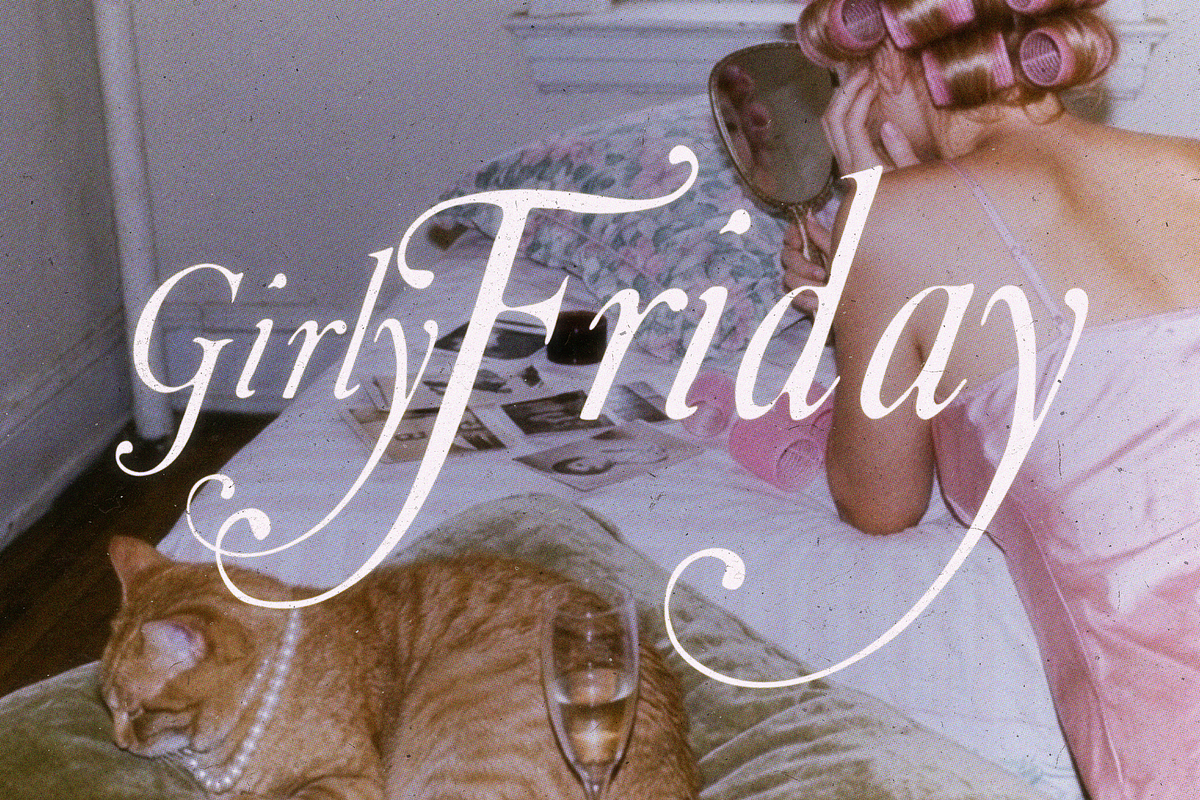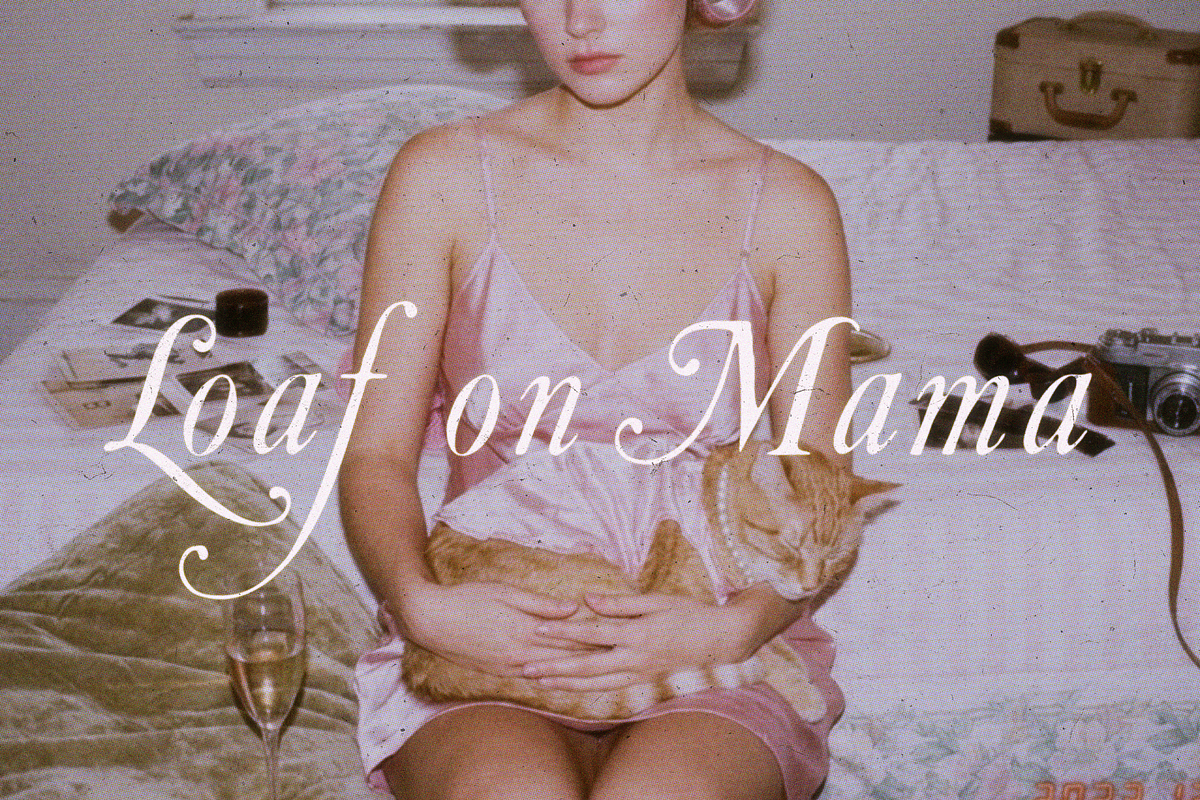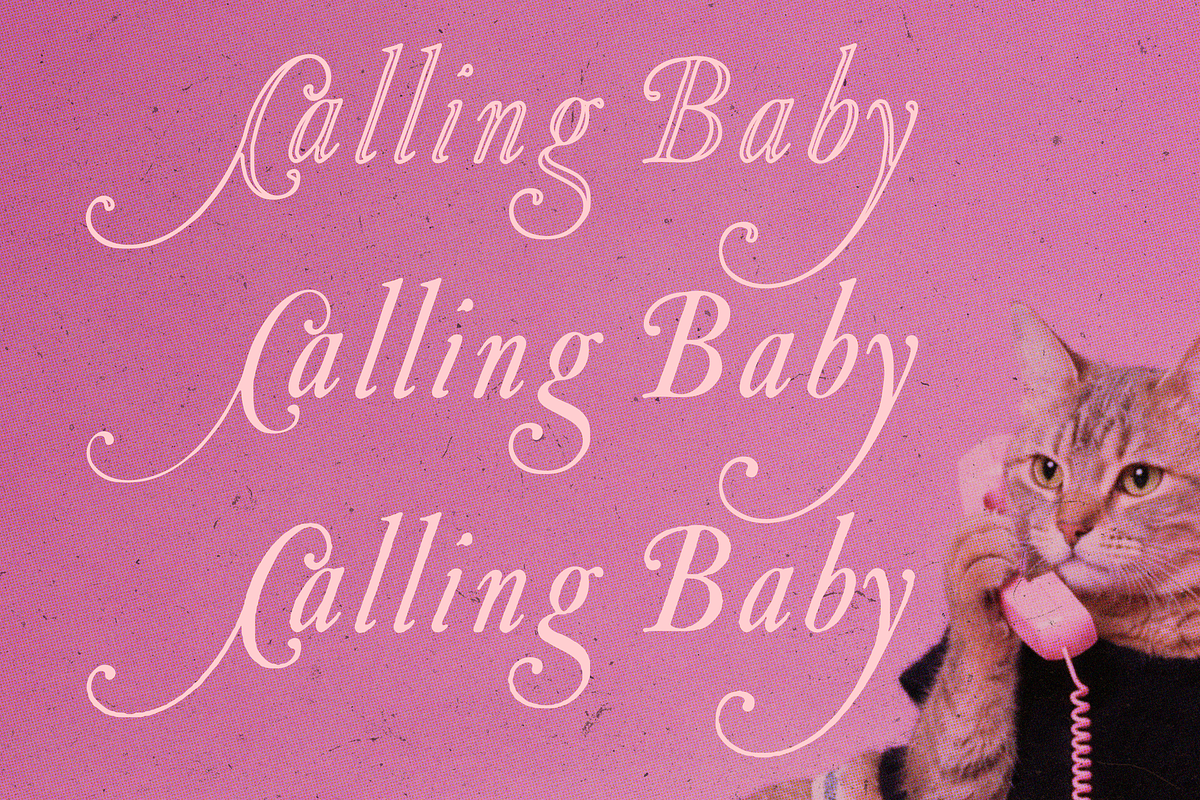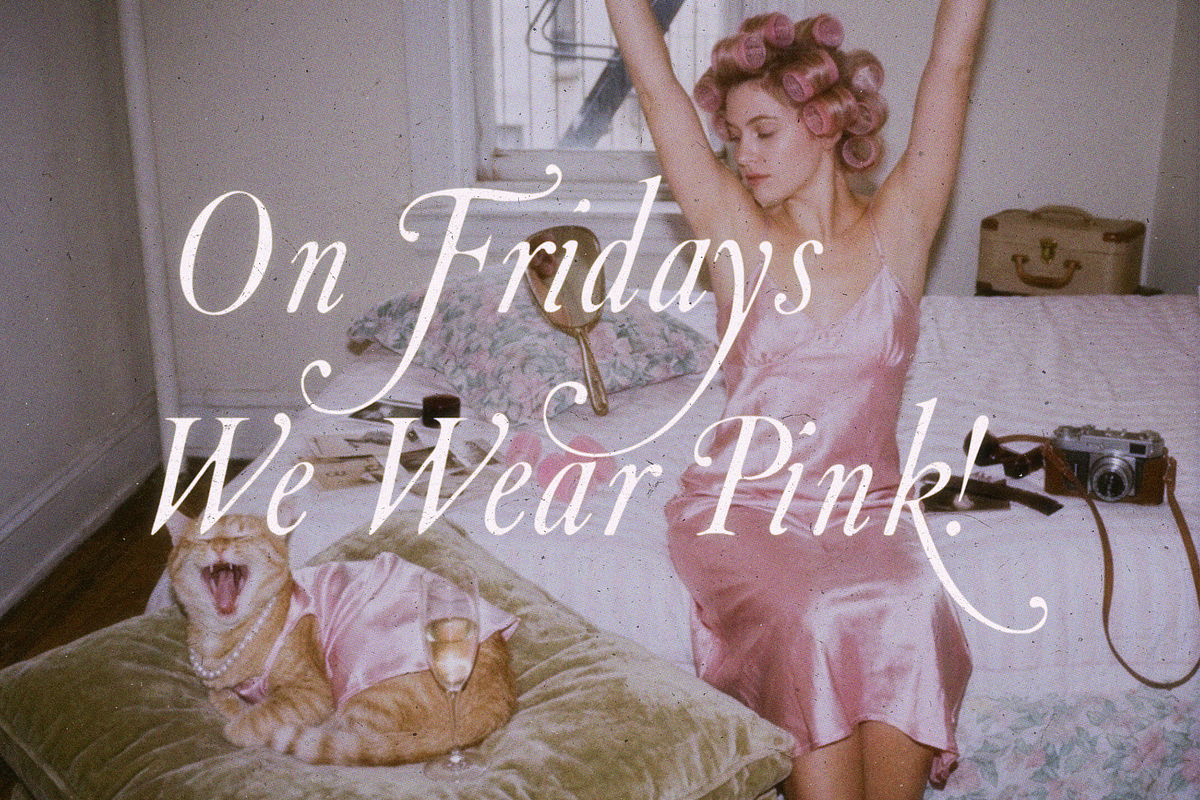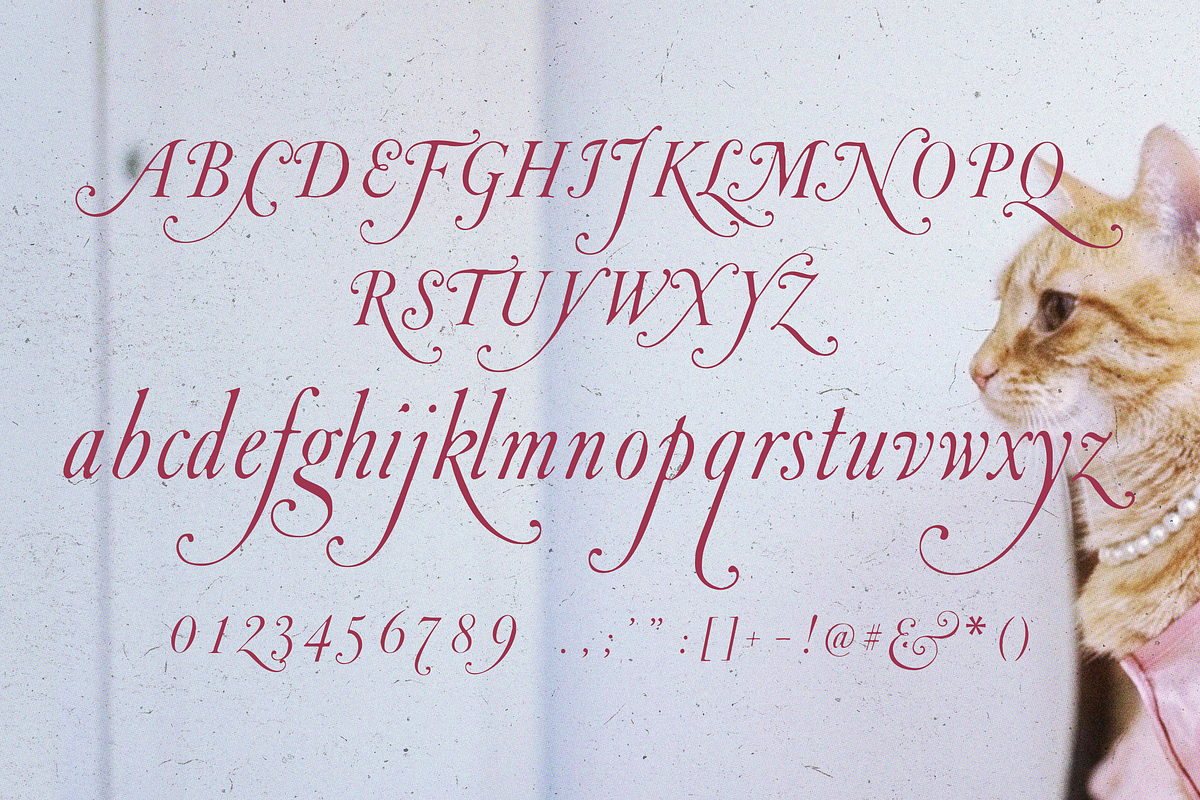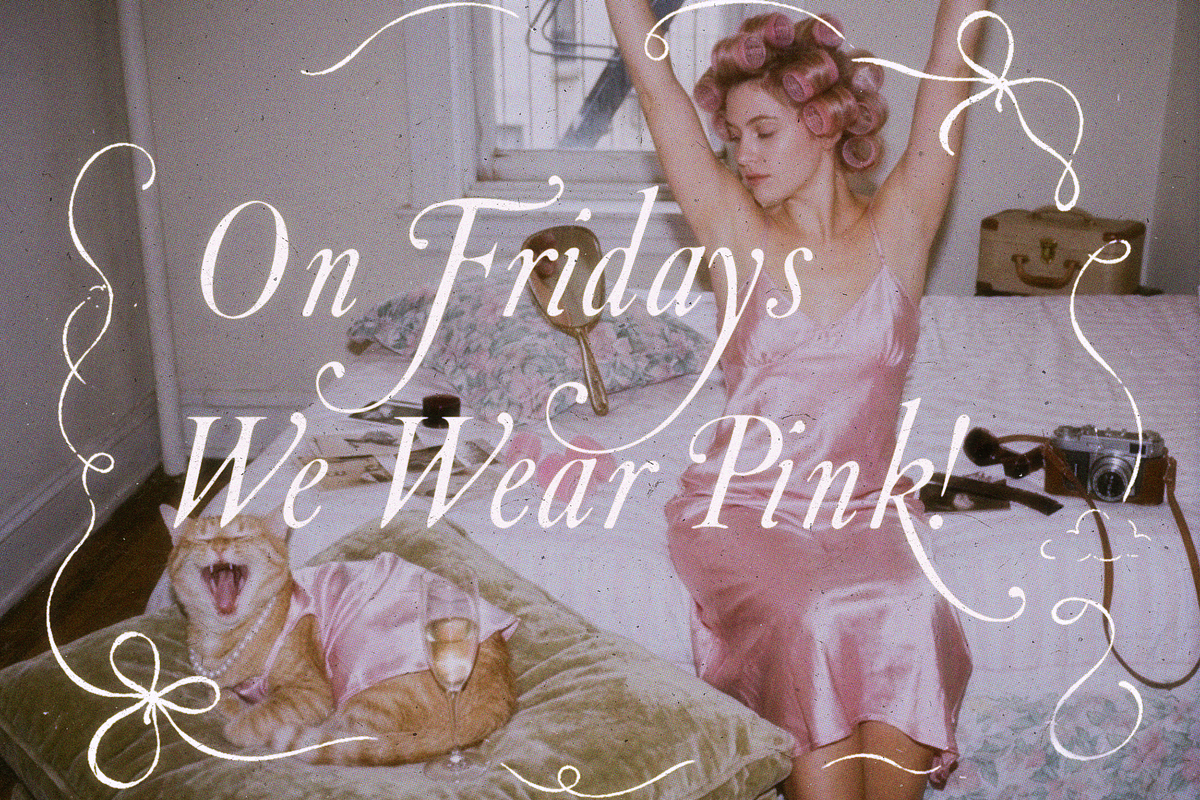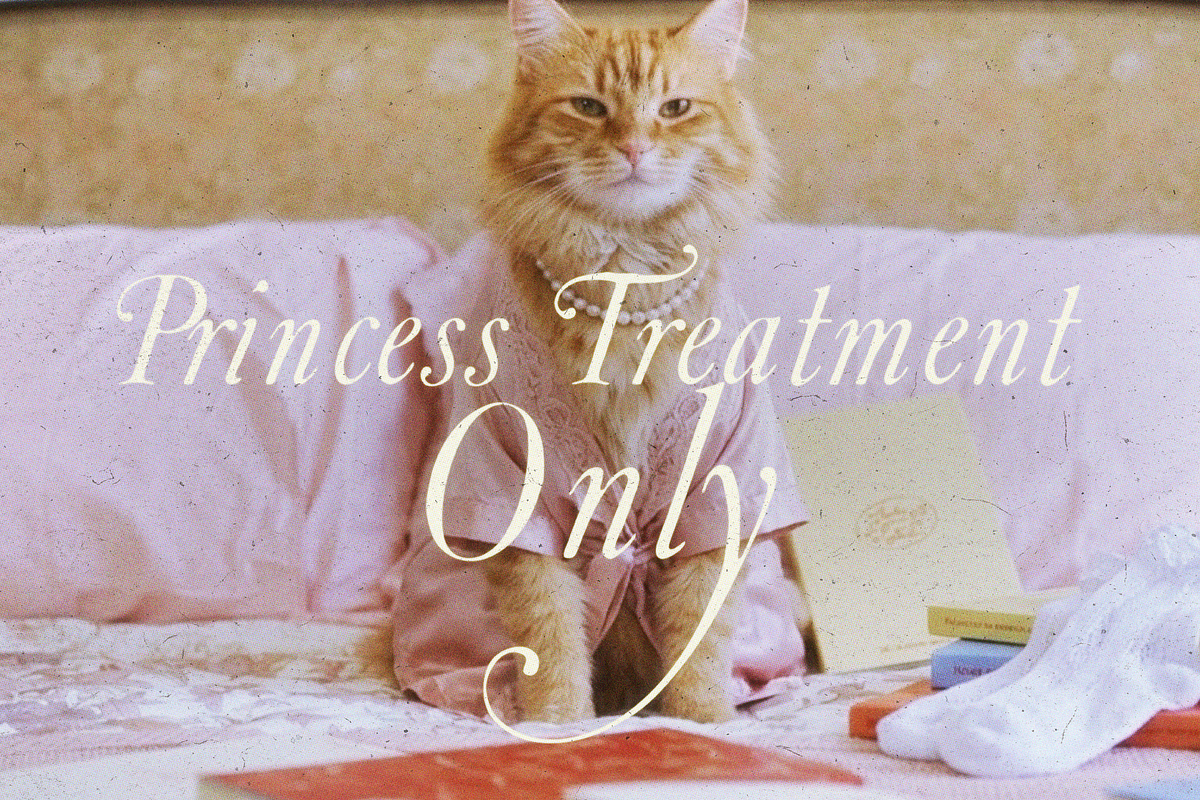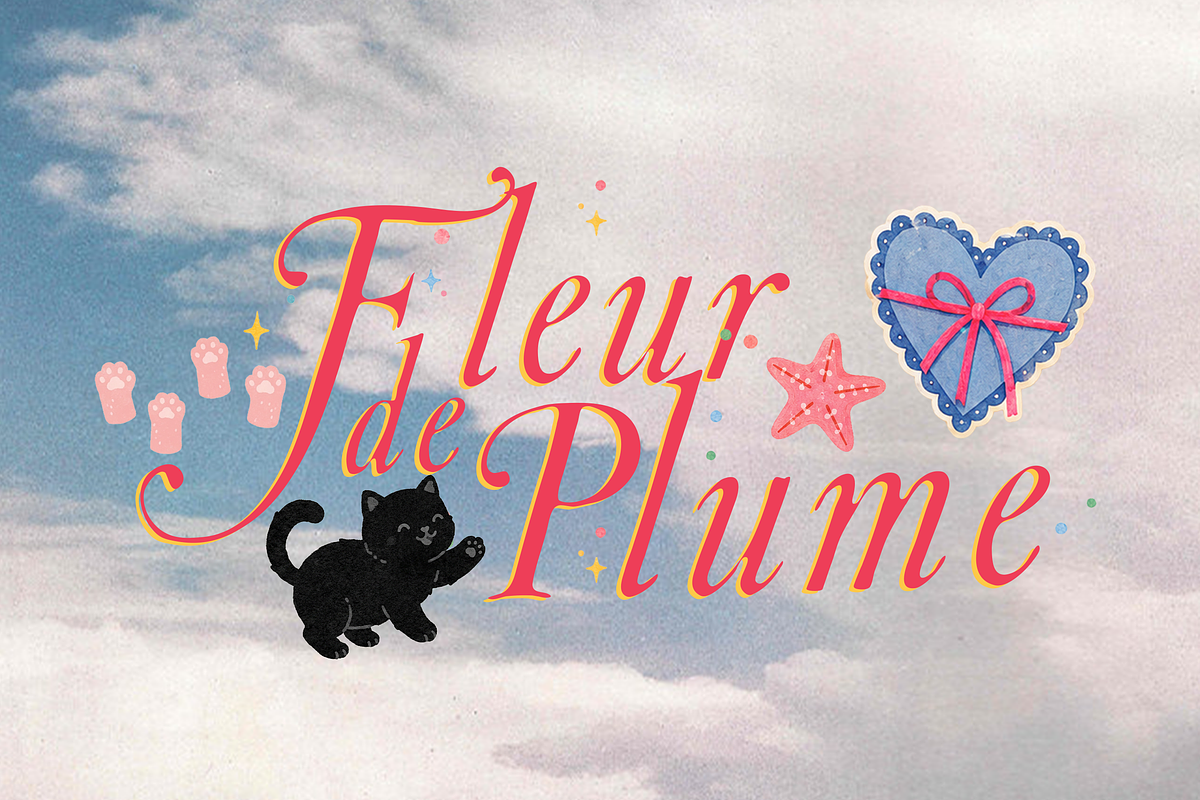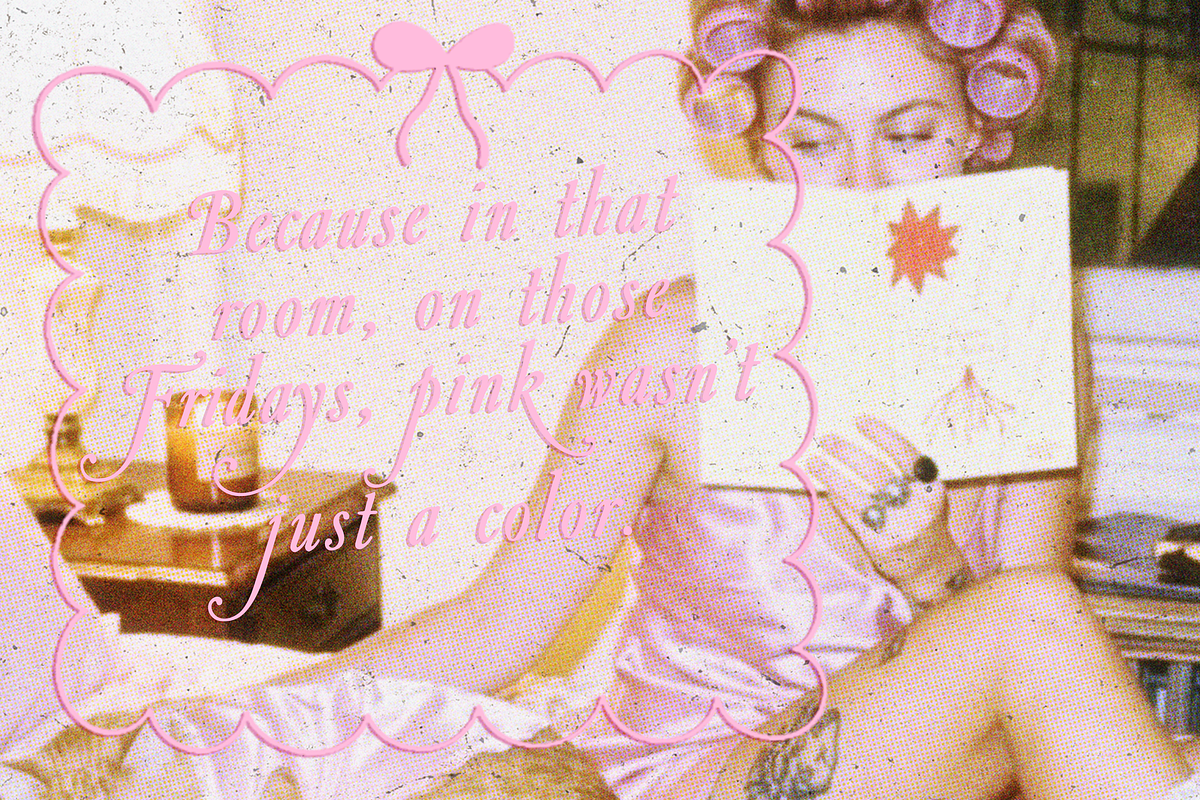
Fleur de Plume
Fleur de Plume is an elegant calligraphic display font filled with sweeping flourishes, delicate curves, and dramatic elongated tails. Inspired by vintage fashion editorials, handwritten love letters, and romantic French stationery, it blends graceful femininity with a playful retro charm.
Its refined thick-and-thin strokes and ornamental letterforms make every word feel expressive and beautifully composed. Fleur de Plume is especially suited to statement titles, branding, packaging, wedding stationery, magazine layouts, social media graphics, invitations, posters, and romantic editorial designs.
The font includes** uppercase and lowercase letters, numerals, punctuation, and decorative characters,** giving you everything needed to create sophisticated typography with a dreamy, nostalgic personality.
Meet Fleur de Plume a romantic calligraphic font with elegant curves, sweeping tails, and a touch of vintage glamour. Created for designs that deserve to feel feminine, expressive, and unforgettable.